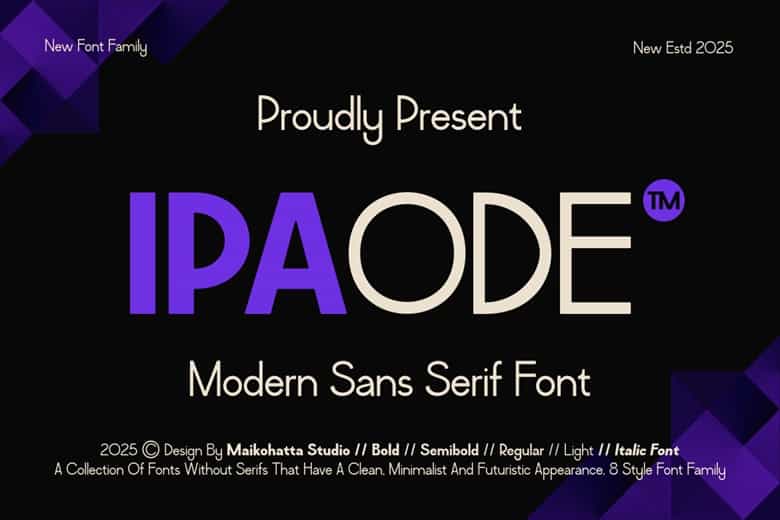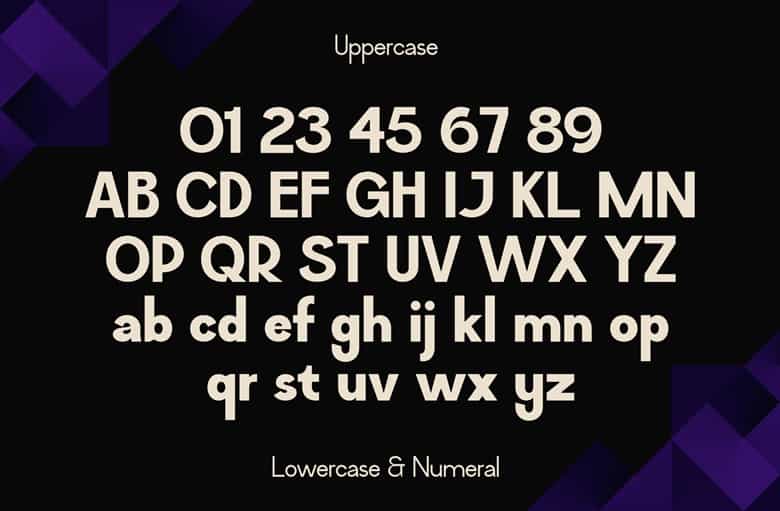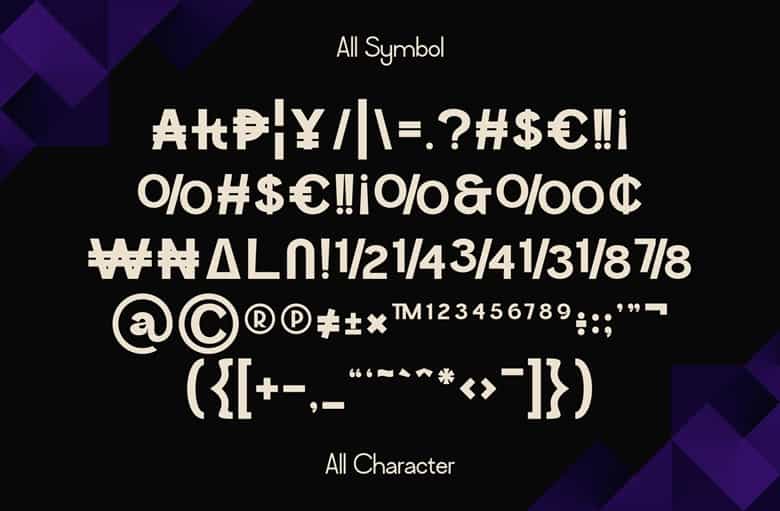
Ipaode is a modern sans serif font family in variety style is one among the best font for graphic design and neat fonts for display. This serif font is a perfect fit for all forms of graphic design as it provides enough fluidity to manage the form of text depended on the graphic design scenario. In contexts of using various combinations you are able to create good and easily readable text displays.